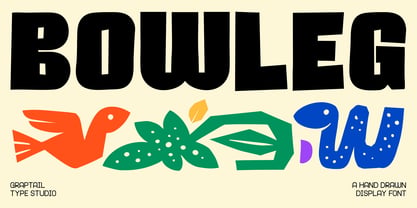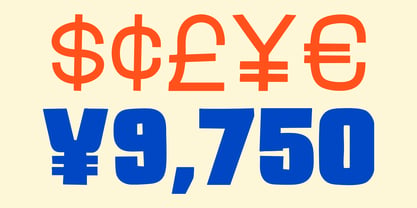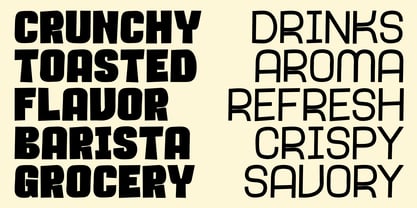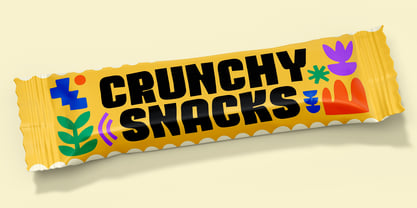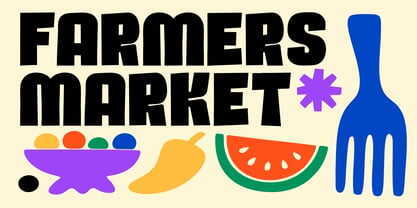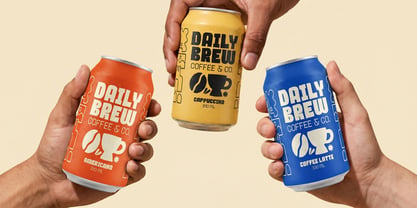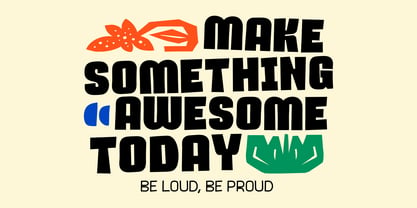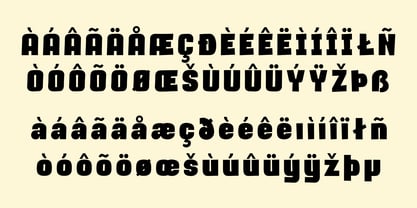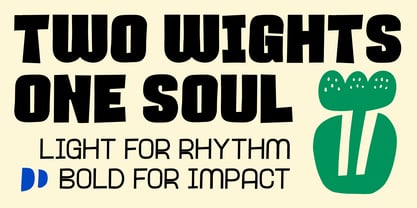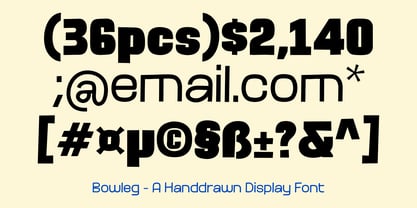
Bowleg
by Graptail
The Bowleg Font Family was designed by Teuku Deky Firnanda and published by Graptail. Bowleg contains 2 styles and family package options. More about this family
Bowleg is a bold hand-drawn display font inspired by folk art, handcrafted signage, psychedelic lettering, and primitive geometric forms. Designed with expressive imperfections and strong visual character, Bowleg brings a playful yet powerful presence to any creative project.
Featuring chunky letterforms, organic curves, and unique cut-out details, this typeface captures the energy of handmade design while maintaining excellent readability. Its distinctive personality makes it perfect for designers looking to create eye-catching headlines, memorable branding, and artistic compositions.
Bowleg blends the spirit of experimental typography, tribal-inspired symbolism, retro-modern aesthetics, and risograph poster culture, resulting in a font that feels both nostalgic and contemporary.